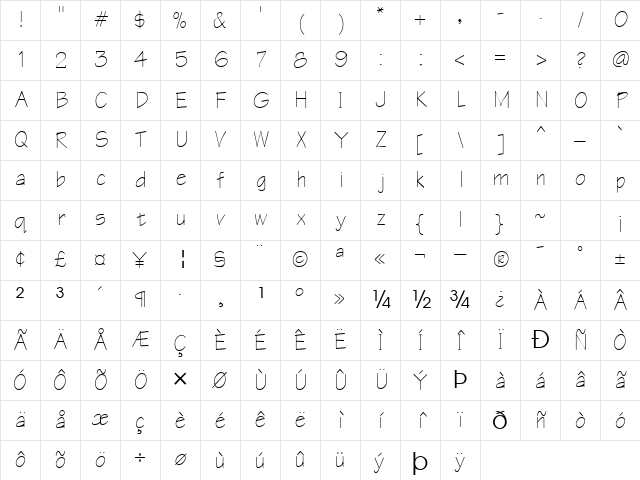
Cheers Regular
Cheers Family
Cheers Regular
Design Context for Cheers
Cheers is a composed and adaptable typeface that performs quietly and consistently across a wide range of design contexts.
Pro Tip: Use Cheers in both headline and body roles to test its range before committing to a single application.